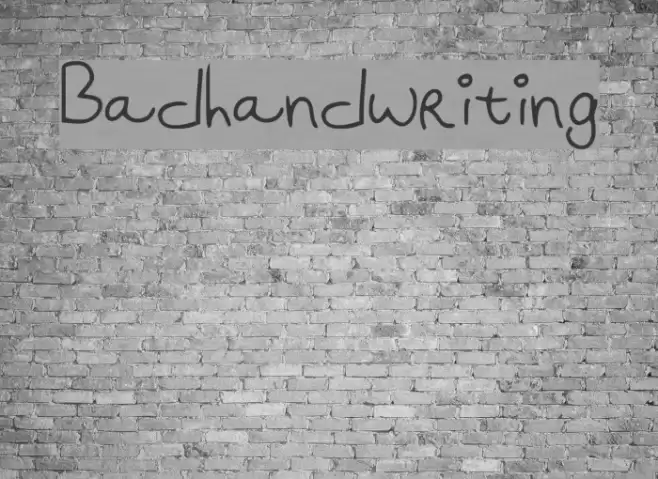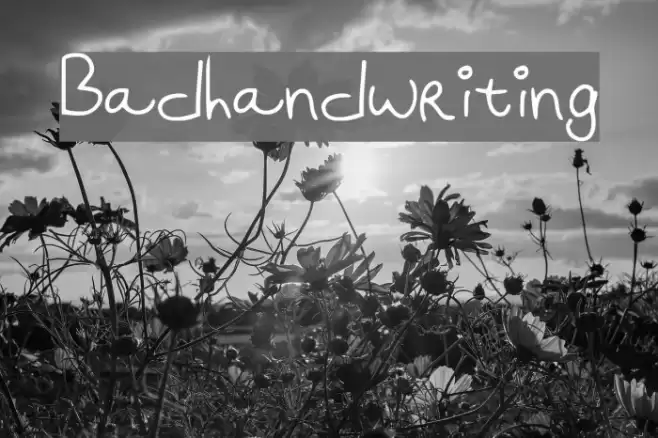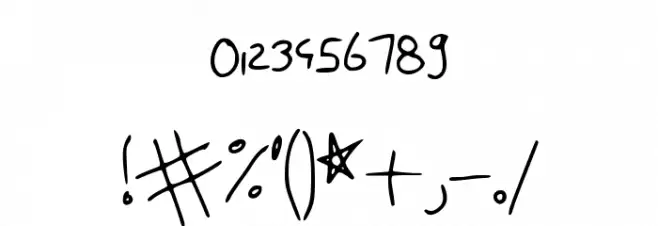
Badhandwriting Font
This font exhibits a playful and casual handwritten style, characterized by its irregular and flowing letterforms. The uppercase and lowercase letters maintain a consistent, informal appearance, with slight variations in stroke thickness that add to its charm. The numerals and special characters follow the same whimsical design, making the font suitable for projects that require a personal touch. The overall look is approachable and friendly, with a touch of spontaneity that captures the essence of handwritten notes.
A playful, casual handwritten font with irregular, flowing letterforms from Uncategorized fonts.
- Proposed Projects: Ideal for greeting cards, personal invitations, children's books, and informal branding.
- Overall Style: Casual, Playful
- Use Case: Headlines, Informal text, Personal projects